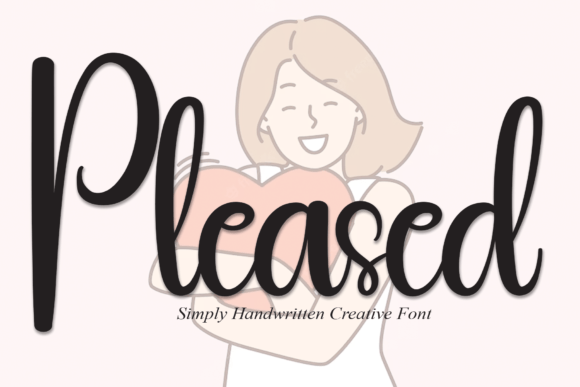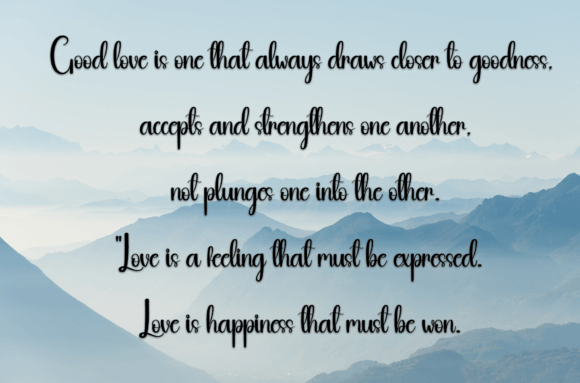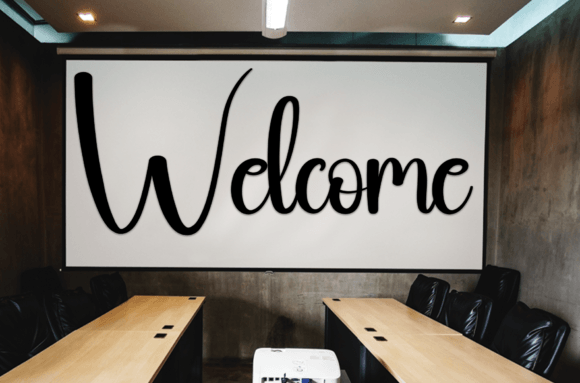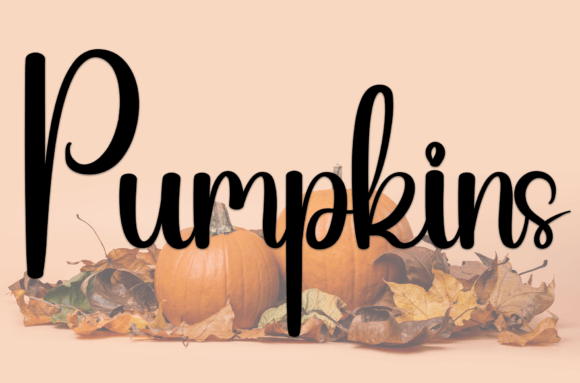
About Pleased
Pleased is a sweet and friendly handwritten font. Creative and cute, this font is ideal for writing wedding invitations, cards, or any other design that might need a fun touch!